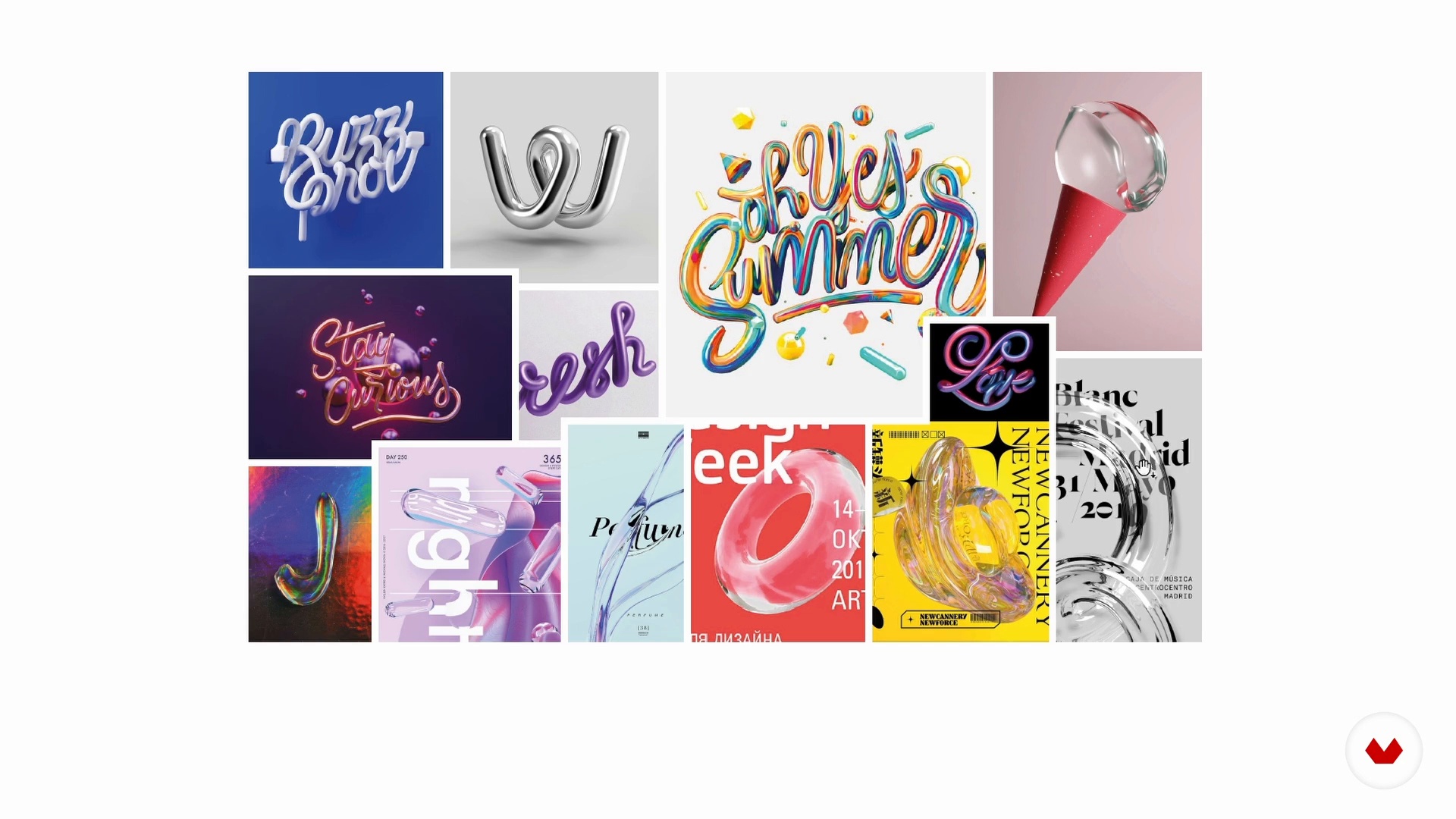
3D Font Design with a Metallic Finish
“I consider it essential to seek inspiration and references when creating a project. I want to show you where I find my references and how I save them to have them on hand when doing a job. ”
In this video lesson Dawlym Murillo Jaramillo addresses the topic: References, which is part of the Domestika online course: 3D Font Design with a Metallic Finish. Learn three-dimensional modeling techniques in Cinema 4D to add a realistic and vibrant touch to your lettering.
“In this lesson we will see the references and how important they are to define the style that we are going to work on our projects. As creatives, We are always looking for inspiration and tools that help us counteract that creative block that we fear so much. I have some activities that have worked for me and I hope they help you find that inspiration that we need so much at certain times. For example, play sports, read a book, meditate, take a walk. Because sometimes the excess of information not only causes blocks of ideas, but it can also cause anxiety, stress and in the worst cases depr...”